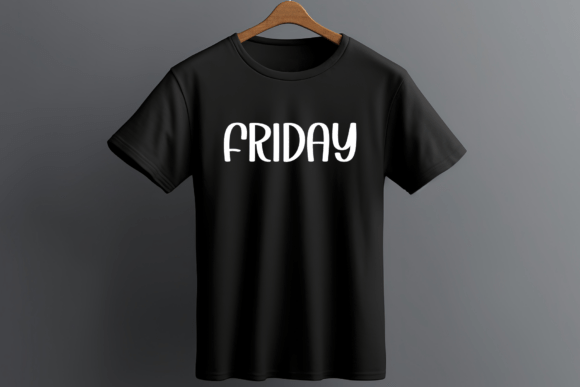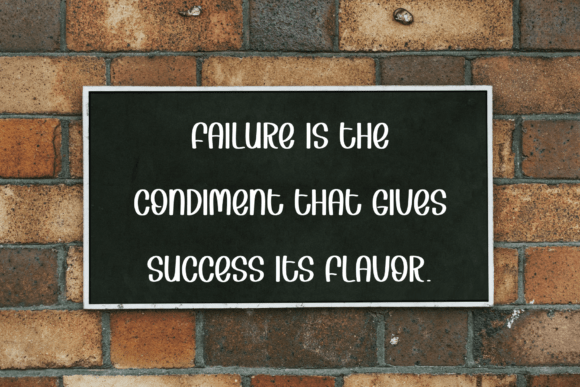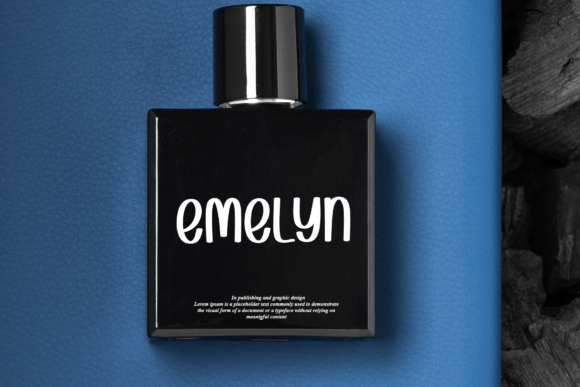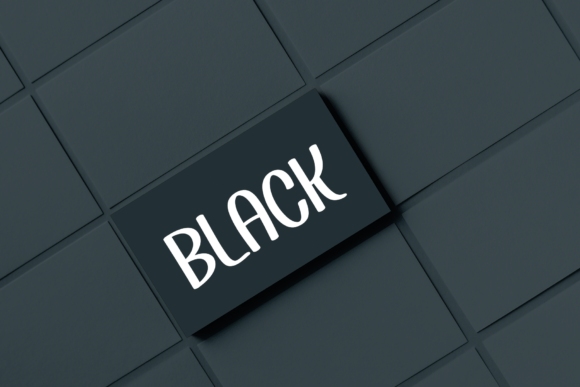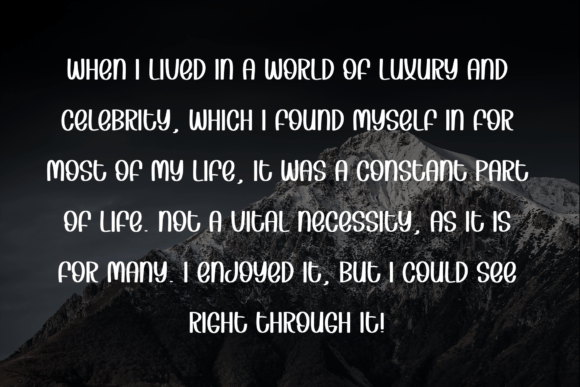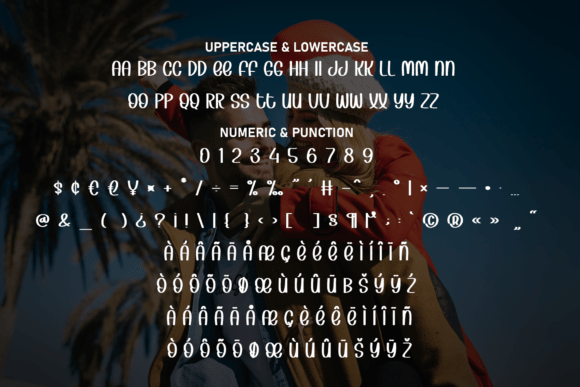
Christmas Vacation Font: The Perfect Choice for Adding Playful Charm to Your Designs
Are you looking for a font that embodies playful charm and can add a delightful touch to your designs? Look no further than the Christmas Vacation Font! This appealing handwritten font is designed with a warm and friendly aura, making it the perfect choice for crafting wedding invitations, greeting cards, or any design that yearns for an infusion of joviality.
What Makes Christmas Vacation Font So Special?
The Christmas Vacation Font is a signature display font that boasts an adorable aesthetic, making it a standout choice for designers and crafters. Its friendly aura and whimsical touch can seamlessly bring a smile to a face, adding an irresistible charm to your design. Whether you’re creating a festive holiday card or a romantic wedding invitation, this font is sure to make your design shine.
Wedding invitations and greeting cards are special occasions that call for a font that’s both elegant and playful. The Christmas Vacation Font fits the bill perfectly, offering a unique blend of sophistication and whimsy. Its handwritten style gives it a personal touch, making it ideal for special occasions where you want to convey your emotions and personality.
Adding Whimsy to Your Designs
One of the best things about the Christmas Vacation Font is its ability to add a touch of whimsy to your designs. Its playful charm can instantly elevate your design from ordinary to extraordinary, making it perfect for designers and crafters who want to create something truly special. Whether you’re designing a festive holiday project or a romantic wedding invitation, this font is sure to bring a touch of magic to your design.
Why Designers and Crafters Love Christmas Vacation Font
Designers and crafters love the Christmas Vacation Font for its versatility and ease of use. Its friendly aura and adorable aesthetic make it perfect for a wide range of design projects, from wedding invitations and greeting cards to holiday decorations and festive crafts. Plus, its handwritten style gives it a personal touch that’s hard to find in digital fonts.
Tips for Using Christmas Vacation Font
Here are some tips for using the Christmas Vacation Font in your designs:
- Use it for headings and titles to add a touch of whimsy and personality to your design.
- Pair it with other fonts to create a unique and eye-catching combination.
- Use it for creating festive holiday cards, wedding invitations, and other special occasion designs.
In conclusion, the Christmas Vacation Font is a must-have for designers and crafters who want to add a touch of playful charm to their designs. Its friendly aura, adorable aesthetic, and whimsical touch make it perfect for a wide range of design projects, from wedding invitations and greeting cards to holiday decorations and festive crafts. With its ease of use and versatility, this font is sure to become a favorite in your design arsenal.